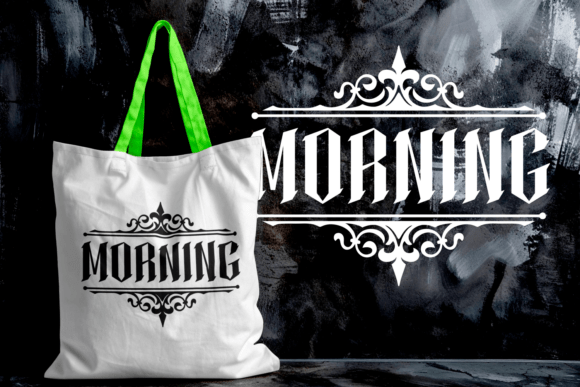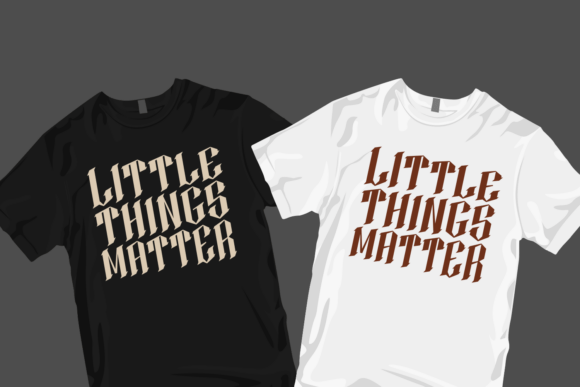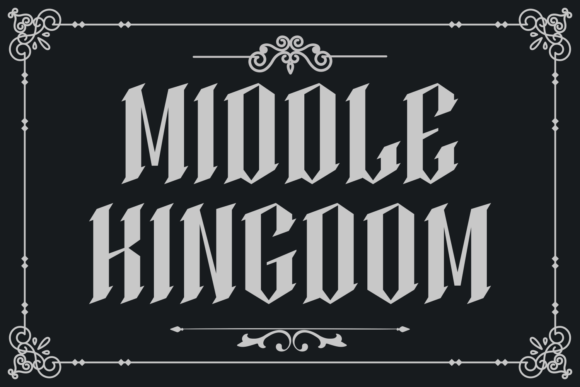
The Power of Danko Arrival: Unleashing a Striking Blackletter Font
I’ll never forget the design project that led me to Danko Arrival. I was working on a dark, edgy album cover for a heavy metal band, and I was struggling to find the perfect font. The client wanted something that would convey the band’s intense energy and rebellious spirit, but I was coming up blank. That’s when I stumbled upon Danko Arrival, and it was love at first sight. ✨
This striking blackletter typeface commands attention with its bold, angular letterforms and dramatic presence. It captures the essence of Gothic elegance while infusing a modern edge, making it perfect for projects that demand a dark, edgy, and impactful visual style.
An Honest Review of Danko Arrival
- ✨ Bold and attention-grabbing: Danko Arrival is a font that demands attention. Its sharp serifs, high contrast, and intricate details make it perfect for headlines, titles, and branding.
- ✅ Versatile: Despite its bold personality, Danko Arrival can be used in a variety of design projects, from album covers to posters, apparel, and even digital graphics.
- 💯 High-quality design: The font is meticulously crafted, with a level of detail that sets it apart from other blackletter typefaces.
While Danko Arrival is an amazing font, there are a few things to keep in mind: 🤔
- ⚠️ Legibility at small sizes: Due to its intricate details and high contrast, Danko Arrival may not be the best choice for body text or small font sizes.
- ⚠️ Limited use in certain contexts: While Danko Arrival is perfect for dark, edgy designs, it may not be suitable for projects that require a more playful or whimsical feel.
Danko Arrival comes with a range of OpenType features and glyphs that can be used to customize your text. These include:
- Stylistic alternates: Alternate letterforms that can be used to add variety to your text.
- Glyphs: Additional characters and symbols that can be used to add texture and interest to your design.
The Backstory of Danko Arrival
Danko Arrival was designed by a team of typographers who wanted to create a font that would capture the essence of Gothic elegance while infusing a modern edge. The font is inspired by traditional blackletter typefaces, but with a bold, contemporary twist. 💻
Q: What type of projects is Danko Arrival best suited for?
A: Danko Arrival is perfect for projects that demand a dark, edgy, and impactful visual style, such as album covers, posters, branding, and apparel.
Q: Can I use Danko Arrival for body text?
A: While Danko Arrival is a beautiful font, it’s not ideal for body text due to its intricate details and high contrast. It’s best used for headlines, titles, and other display text.
Q: Is Danko Arrival a versatile font?
A: Yes, Danko Arrival is a versatile font that can be used in a variety of design projects, from dark and edgy to bold and playful.